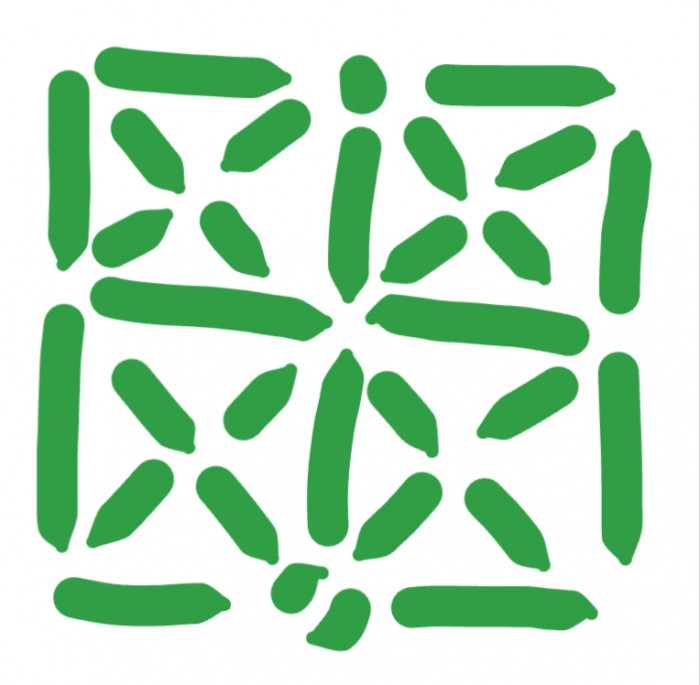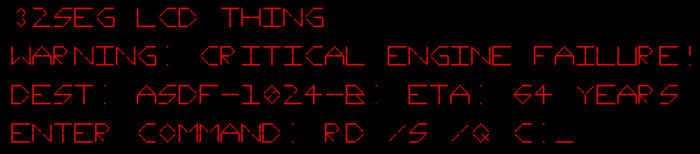
• an lcd font with 32 segments
here is a much clearer map of the segments than the one you can find at the space while i make the font (which will probably be rdmoved later on anyways)
the space placeholder has been moved to the missing character rectangle.
font and sample done! (ok this sample isnt very clear i think...)